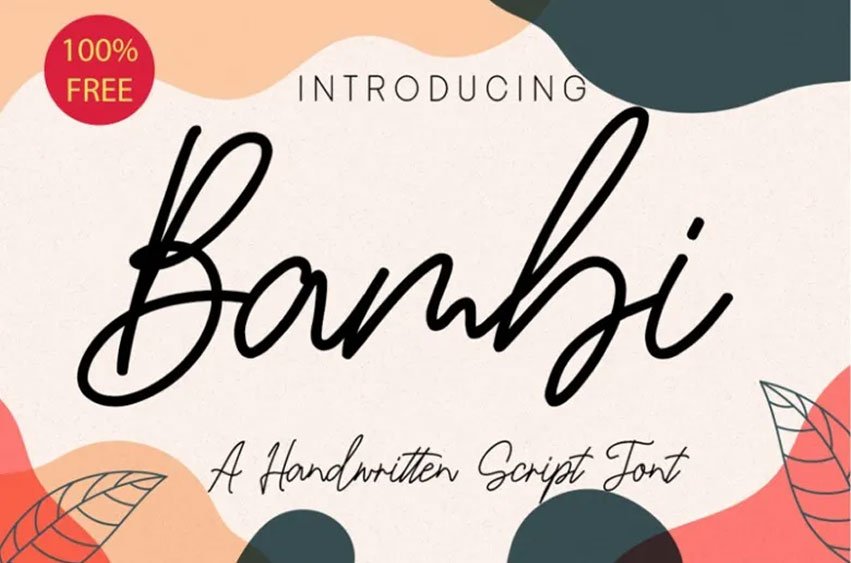
Bambi Font
Bambi Font is a stylish modern handwritten font, with a casual style of writing. It’s ideal to use for branding, signature logos wedding invitations photography, and more.
You can make use of Bambi to promote your products and everything else. Your designs will have a genuine brush-handcrafted, hand-made feel.